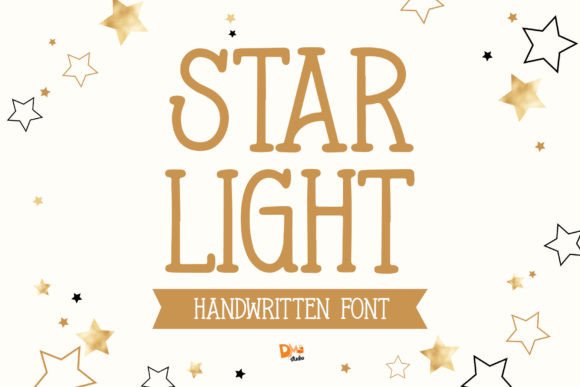
Introducing Star Light Font, the ultimate choice for businesses looking to make a statement with their brand. This slab serif font, created by dmletter31, is the perfect blend of fun, clean and well-designed features, all in one font.
If you're looking to elevate your brand and make it stand out from the crowd, look no further than Star Light Font. Its uniqueness makes it ideal for business names, logos, and other branding materials. This versatile font can be used in a variety of projects, from websites to brochures, to product packaging.
What makes Star Light Font special is its ability to bring life to any design. Its clean lines and bold features create a strong visual impact that commands attention. Whether you're designing for a trendy startup or a well-established corporation, Star Light Font is guaranteed to deliver stunning results.
With Star Light Font, you're not just getting a font; you're getting a powerful tool that can help your business grow. It's easy to use, and it works seamlessly with other fonts like scripts and sans serifs, making it an excellent choice for all your branding needs.
Don't settle for ordinary fonts. Choose Star Light Font and take your business to the next level. Let your brand shine with the power of Star Light Font!